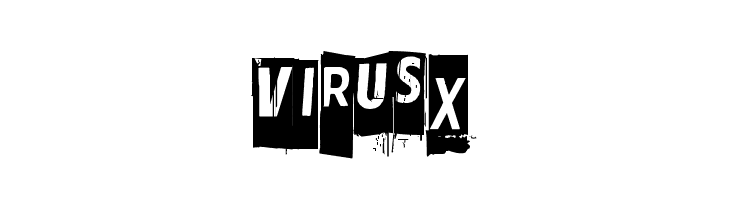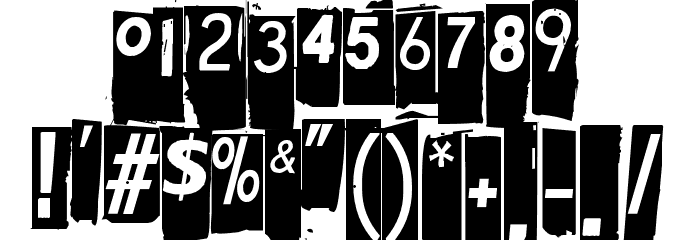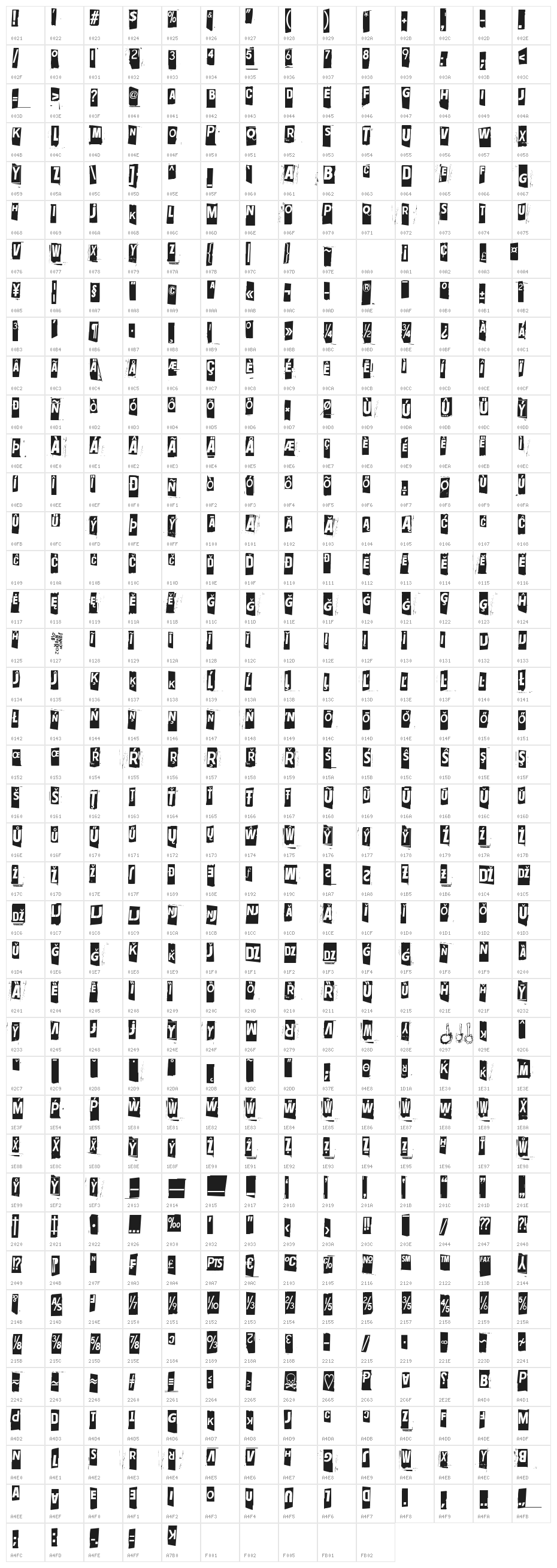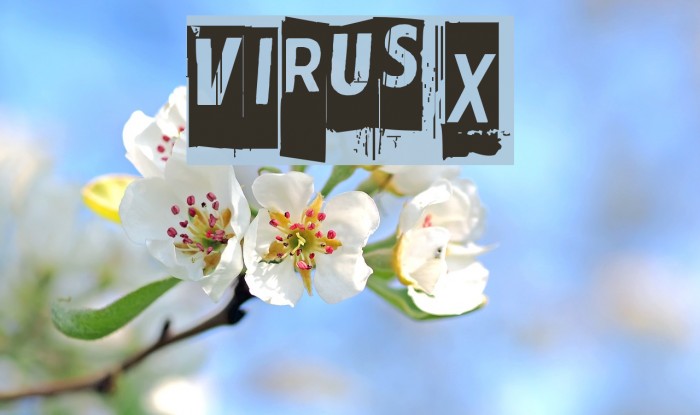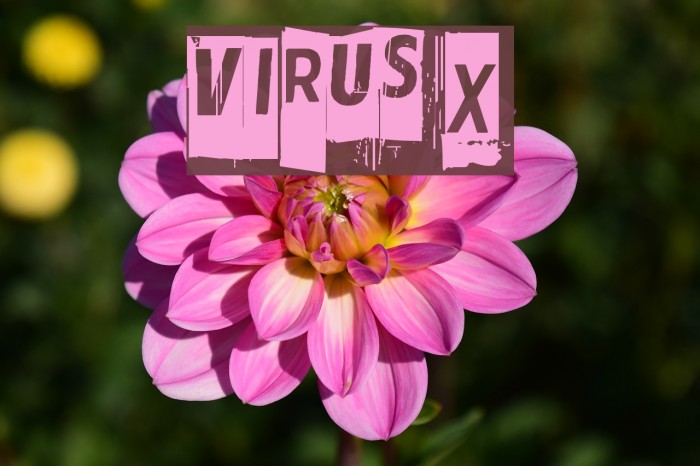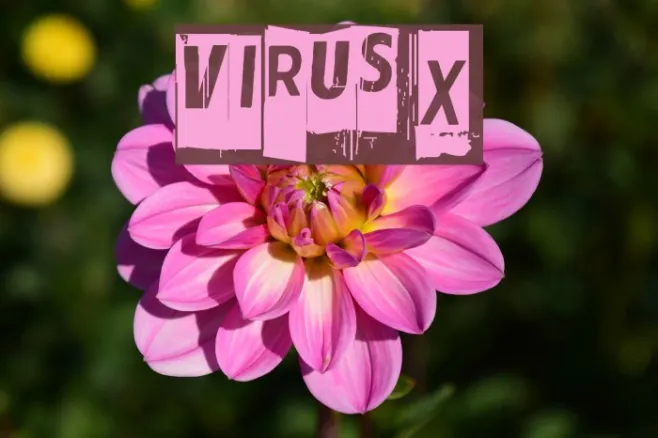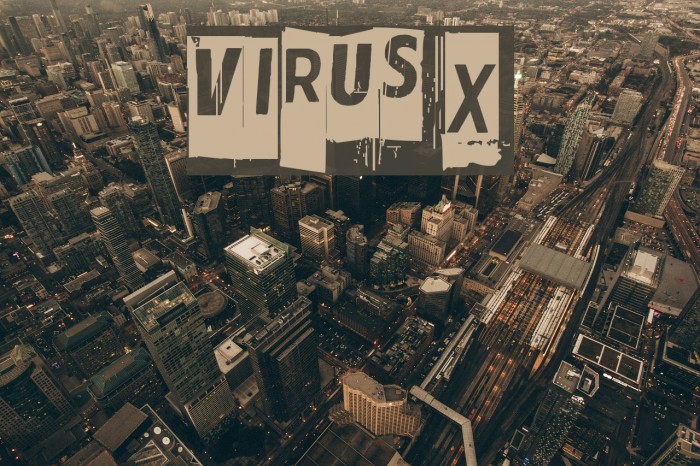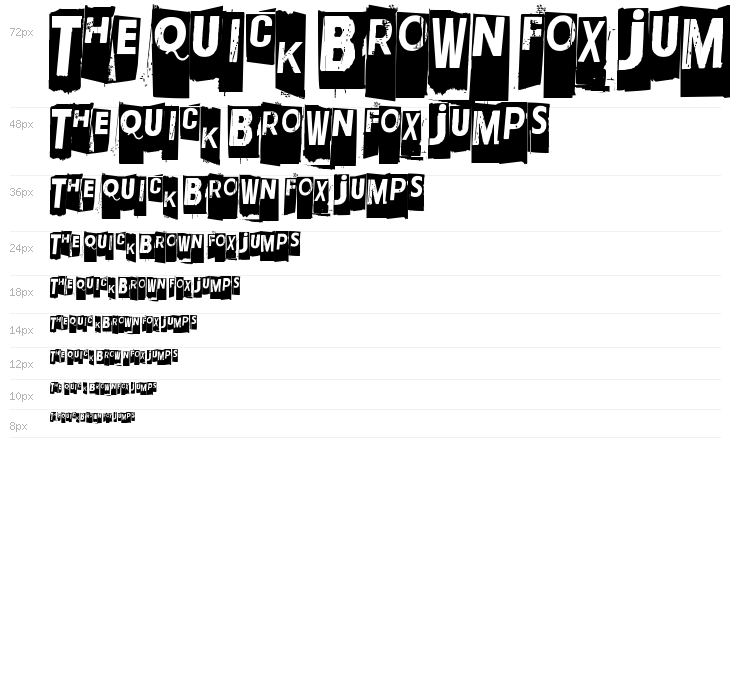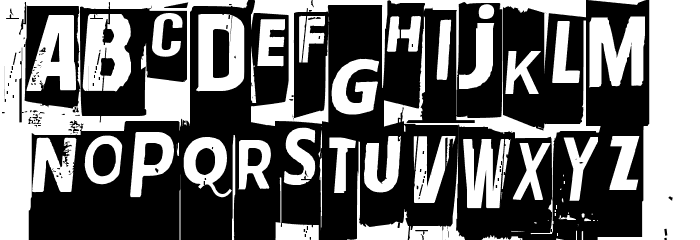
Virus X Font
Virus X Description
This font features a bold and edgy design, reminiscent of cut-out letters from magazines or newspapers. Each character is uniquely styled with varying levels of distress and texture, giving it a rugged and rebellious appearance. The letters are set against a contrasting background, enhancing their visibility and impact. The overall aesthetic is chaotic yet controlled, making it ideal for projects that require a sense of urgency or raw energy. The font's distinct style makes it stand out, perfect for grabbing attention in any design context.
| Overall Style | Edgy, Rebellious, Chaotic |
| Use Case | Headlines, Posters, Album Covers |
| Proposed Projects | Ideal for music album covers, protest posters, edgy branding, or any project needing a bold statement. |